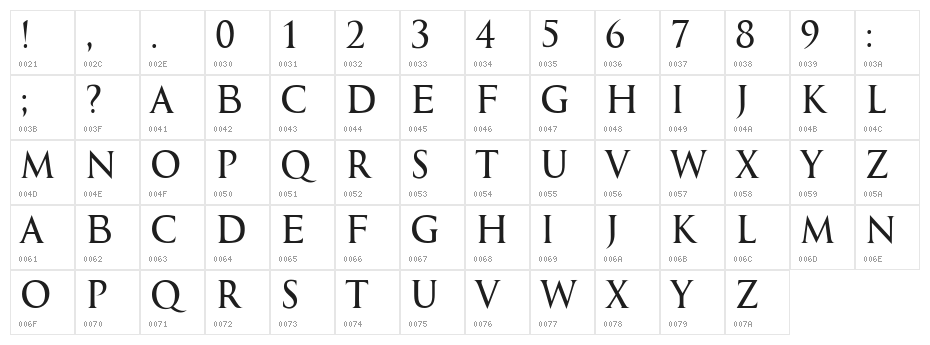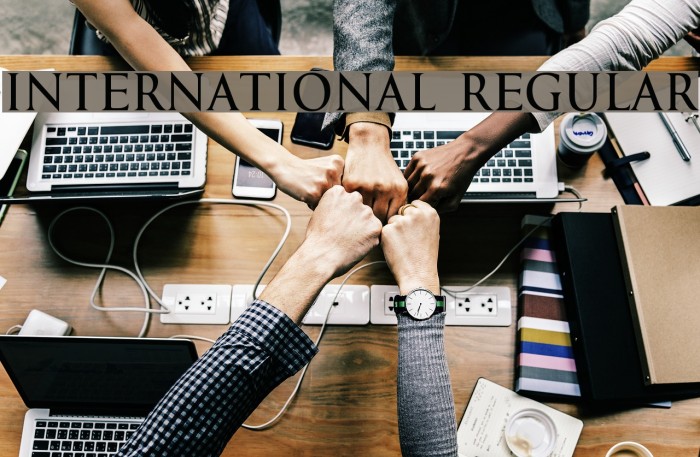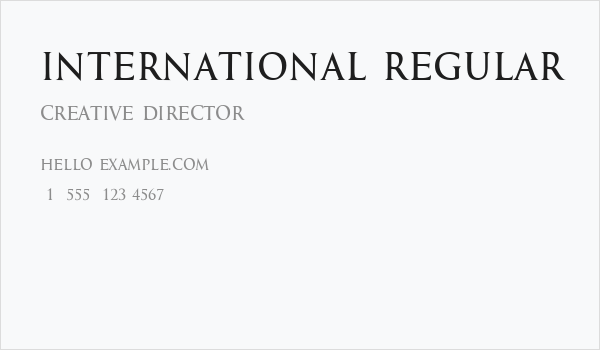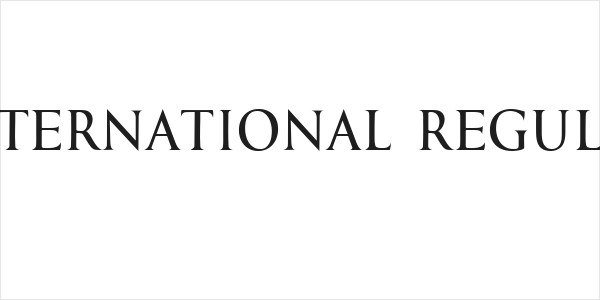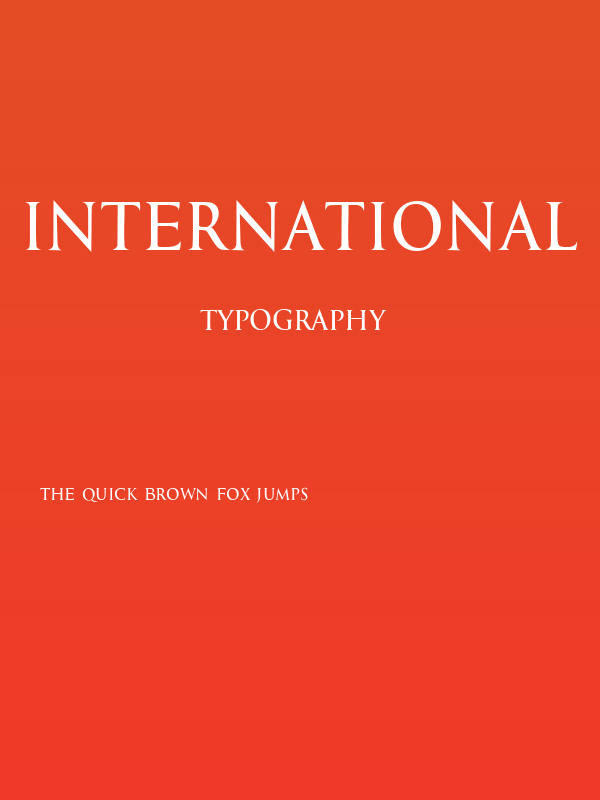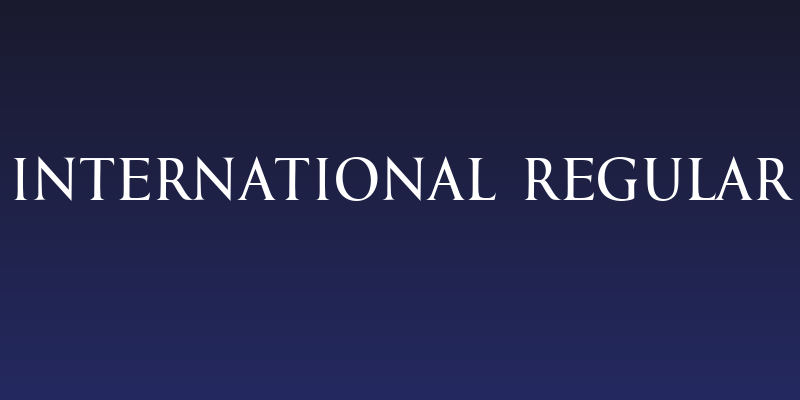
International Regular Font
International Regular Description
This font exhibits a classic serif style with elegant, sweeping curves and sharp, pointed serifs. The uppercase letters are tall and stately, conveying a sense of formality and tradition. The lowercase letters maintain a consistent style with a slightly narrower width, enhancing readability. The numerals are proportionate and blend seamlessly with the alphabet, while the special characters retain the font's overall elegance. The stroke contrast is medium, providing a balanced appearance that is neither too bold nor too light. This font is suitable for projects that require a touch of sophistication and timeless appeal.
| Use Case | Headlines, Body text, Editorial design |
| Proposed Projects | Ideal for book covers, formal invitations, certificates, and editorial design. |